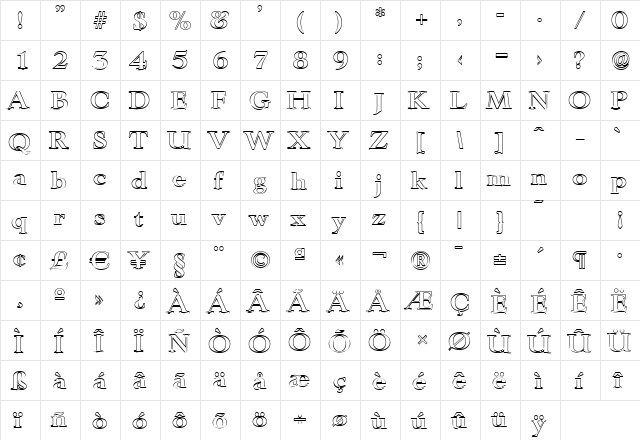
PhillipBeckerOutline Bold
Design Context for PhillipBeckerOutline Typeface
PhillipBeckerOutline is built around its visual character rather than neutral utility — its distinctive forms are designed to make an impression at display sizes. Its bold stroke weight gives it real presence on the page.
Font Pairing: Pair with a clean neutral sans-serif for body copy to let PhillipBeckerOutline's character lead without overwhelming the composition.
Pro Tip: Use PhillipBeckerOutline exclusively at display sizes — it was designed to be seen, not read at length. Let a neutral companion handle body copy.